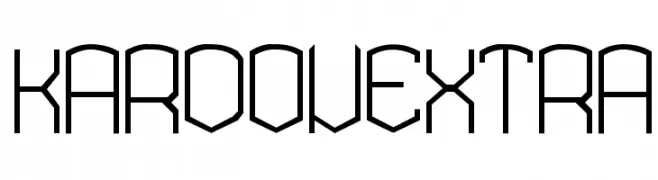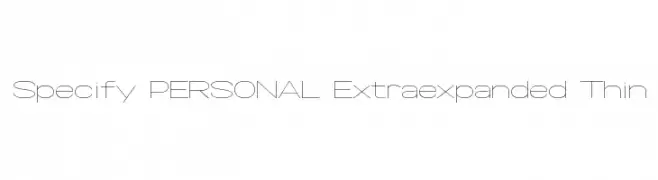
( Jeremy Edelblut - cinnamontoast.tumblr.com/ )
A modern, minimalist font with thin, geometric strokes.
( Khiro )
A geometric, futuristic font with a mechanical and technical aesthetic.
( Khiro )
An abstract, geometric design using dots and lines for character representation.
( Levi Szekeres - www.loremipsum.ro )
A modern, geometric outline font with clean lines and consistent stroke width.
( MRfrukta - Alex Frukta - www.behance.net/MRfrukta )
A geometric, angular font with a modern and futuristic style.
( Matt Bruinooge )
A dot-matrix style font with a modern, tech-inspired aesthetic.
( Michael Hassler - hassified.blogspot.com/ )
A clean, geometric font with a technical and modern style.
( Måns Grebäck - www.mansgreback.com )
An ultra-thin, extra-expanded font with a modern, geometric style.
( Out of Step Font Company - Dan Steinbok - outofstepfontco.com )
A geometric, angular font with a futuristic and precise design.
( Parker Creative - Alan Parker - fontbundles.net/parker-creative )
A modern, light sans-serif font with low contrast and normal spacing, ideal for clear communication.